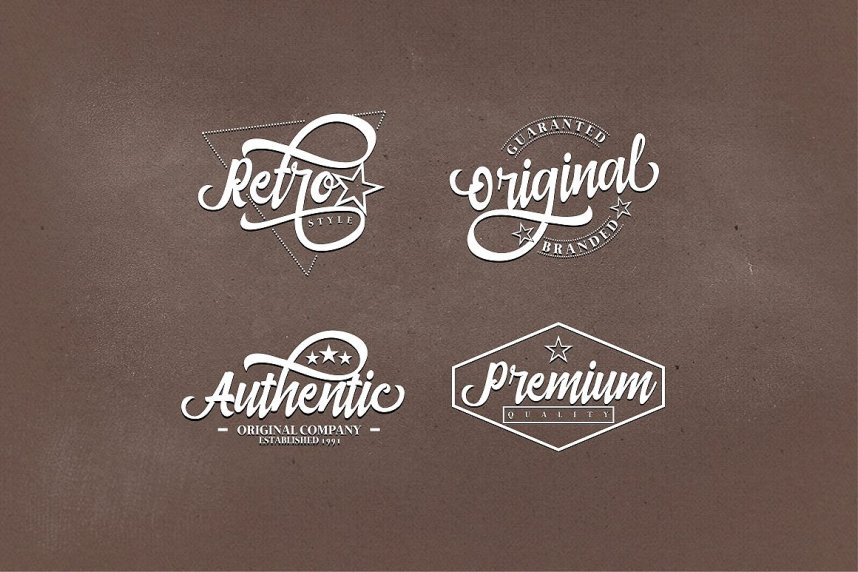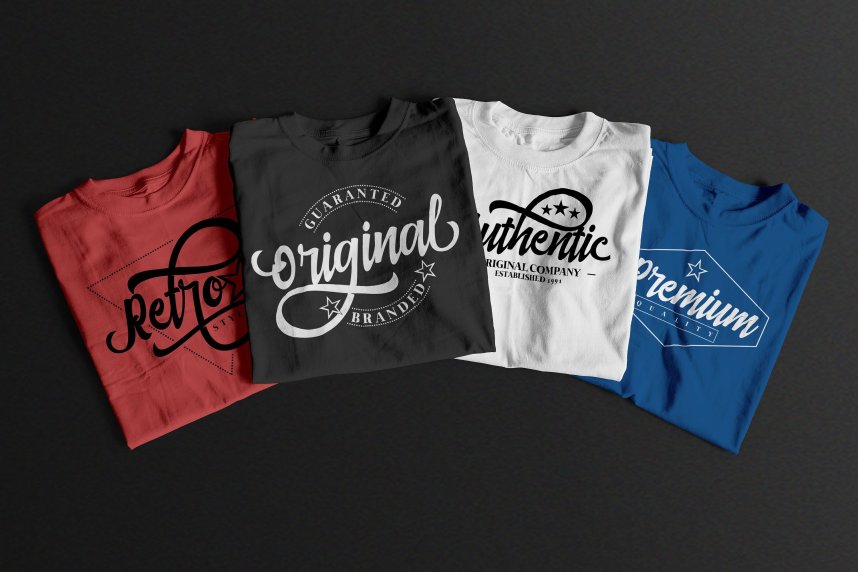
Strike Alone Script Font
A modern lettering typeface. Introducing Strike Alone. Strike Alone is an created by Debut Studio. This font is the retro vintage style. So suitable for your design like the handlettering design, poster, branding, logo design, apparel t-shirt design and much more else.